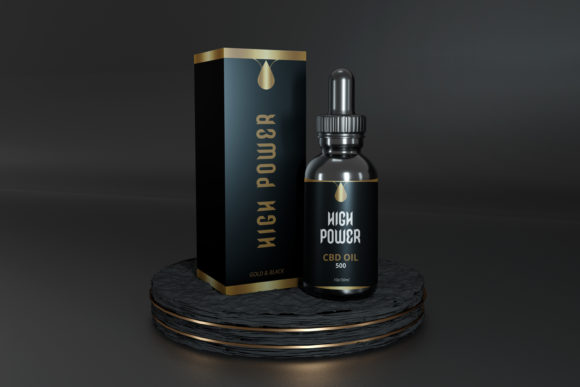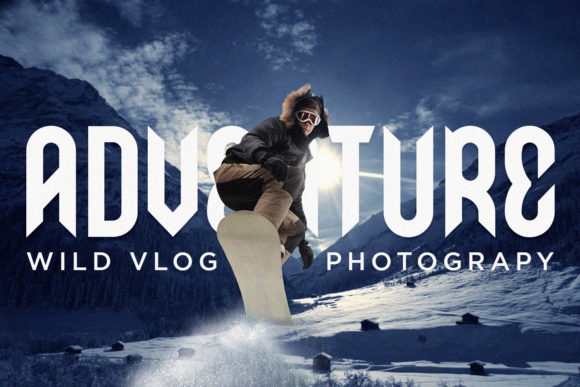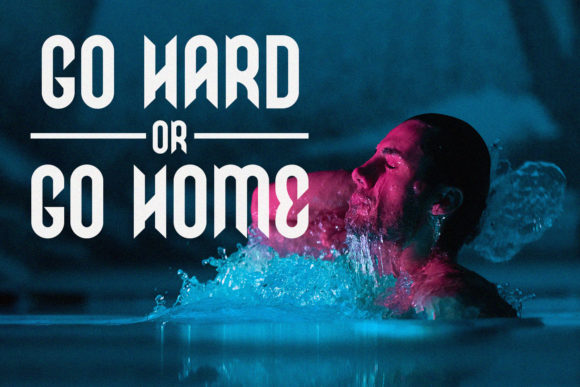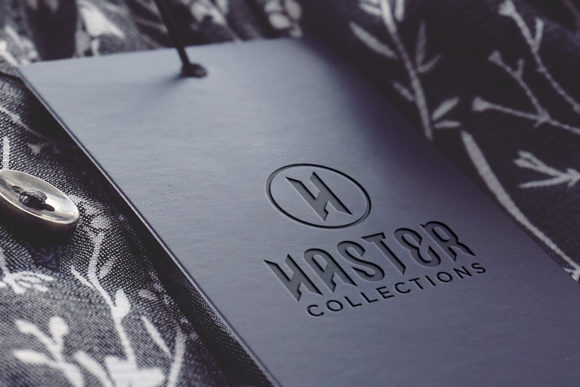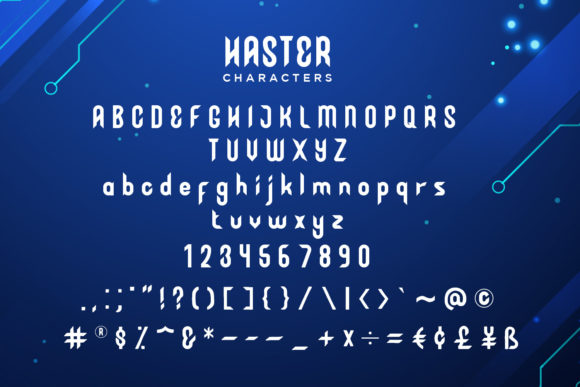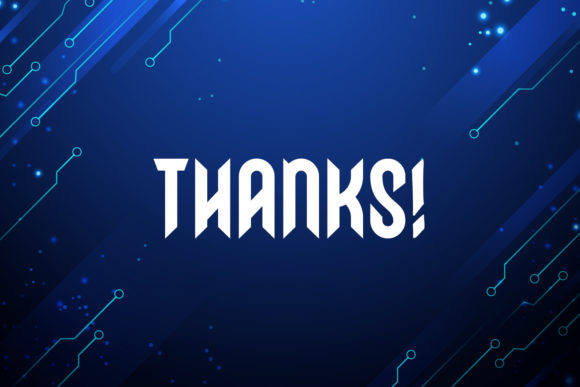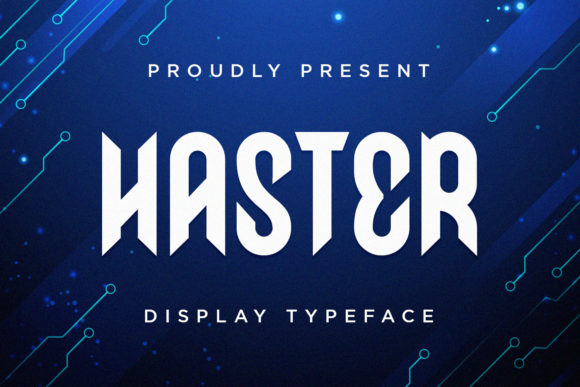
Haster Font: The Ultimate Display Font for Trendy Designs
In the world of typography, fonts play a crucial role in making or breaking a design. A well-chosen font can elevate your project from ordinary to extraordinary, while a poorly chosen one can have the opposite effect. For designers and crafters looking to add a trendy touch to their designs, Haster Font is an excellent choice. This stunning and assertive display font is sure to make a statement in any project.
What Makes Haster Font Stand Out?
Haster Font is a thick lettered and unique display font that is perfect for designers who want to add a bold and eye-catching element to their work. Its distinctive style is sure to grab attention and make your designs stand out from the crowd. Whether you’re working on a logo, poster, or social media graphic, Haster Font is an excellent choice.
Key Features of Haster Font
- Thick Lettered: Haster Font features thick, bold letters that are sure to make a statement in any design.
- Unique Style: The font’s unique style sets it apart from other display fonts, making it perfect for designers who want to add a touch of personality to their work.
- Trendy Touch: Haster Font is designed to add a trendy touch to your designs, making it perfect for projects that require a modern and stylish look.
- Endless Variations: With Haster Font, you can experiment with endless variations to create a unique look that suits your project’s needs.
Uses of Haster Font
Haster Font is a versatile display font that can be used in a variety of projects, including:
- Logos: Haster Font is perfect for creating bold and eye-catching logos that make a statement.
- Posters: The font’s thick lettered style makes it ideal for creating posters that grab attention.
- Social Media Graphics: Haster Font is perfect for creating social media graphics that stand out from the crowd.
- Headings and Titles: The font can be used to create bold and eye-catching headings and titles for websites, blogs, and more.
Tips for Using Haster Font
To get the most out of Haster Font, here are some tips to keep in mind:
- Use it sparingly: Haster Font is a bold and eye-catching font, so use it sparingly to avoid overwhelming your design.
- Experiment with variations: Don’t be afraid to experiment with different variations of the font to create a unique look.
- Pair it with other fonts: Haster Font can be paired with other fonts to create a unique and interesting contrast.
In conclusion, Haster Font is a stunning and assertive display font that is perfect for designers and crafters looking to add a trendy touch to their designs. Its thick lettered and unique style makes it ideal for a variety of projects, from logos and posters to social media graphics and headings. With its endless variations and versatility, Haster Font is sure to become a go-to font in your design arsenal.